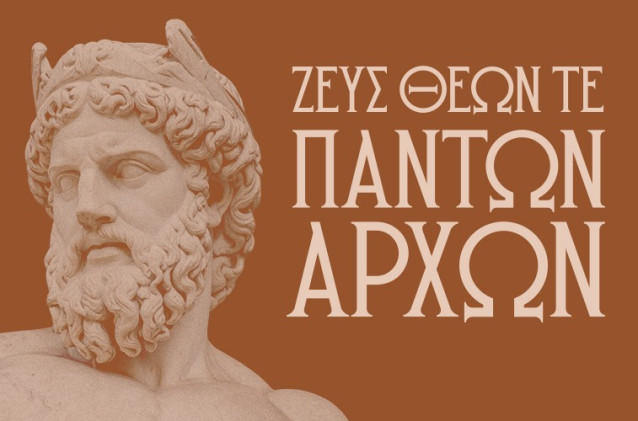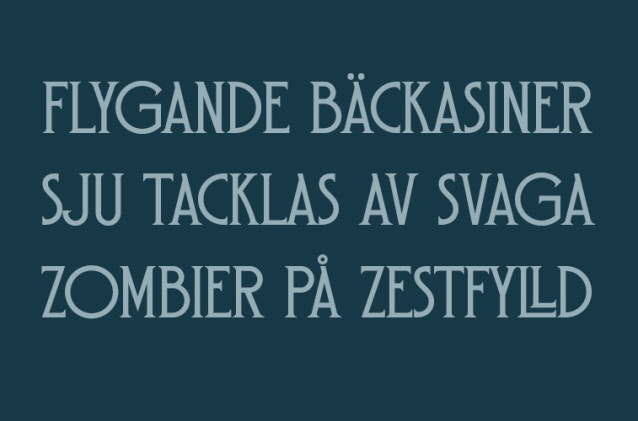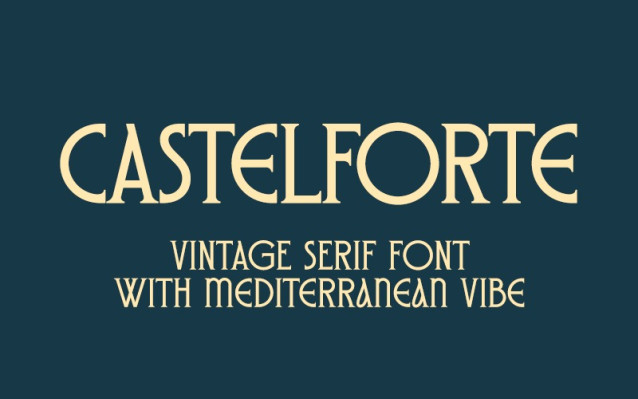
Castelforte Font
Castelforte Font – Neo-Classical font with a condensed structure, Castelforte is inspired by classical antiquity, drawing specific inspiration from Old Roman and Ancient Greek typography. It has strong, geometric serifs, high contrast between thick and thin strokes, and a monumental quality reminiscent of ancient stone carvings.